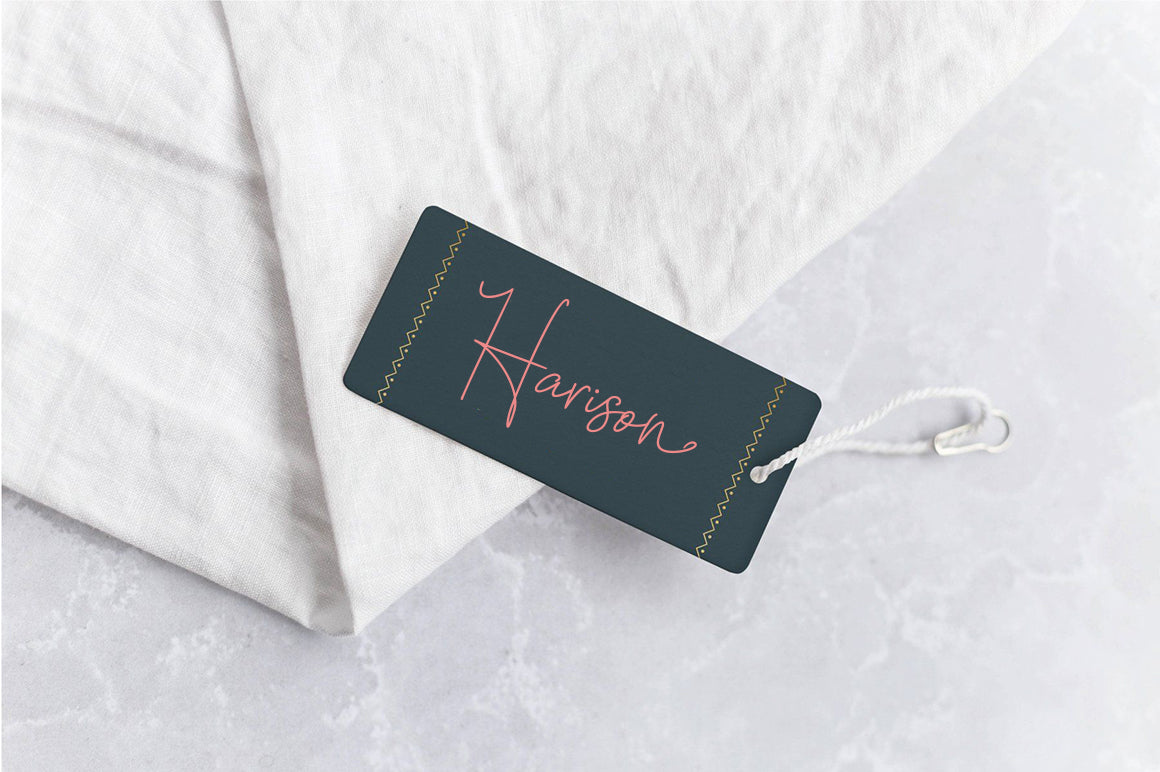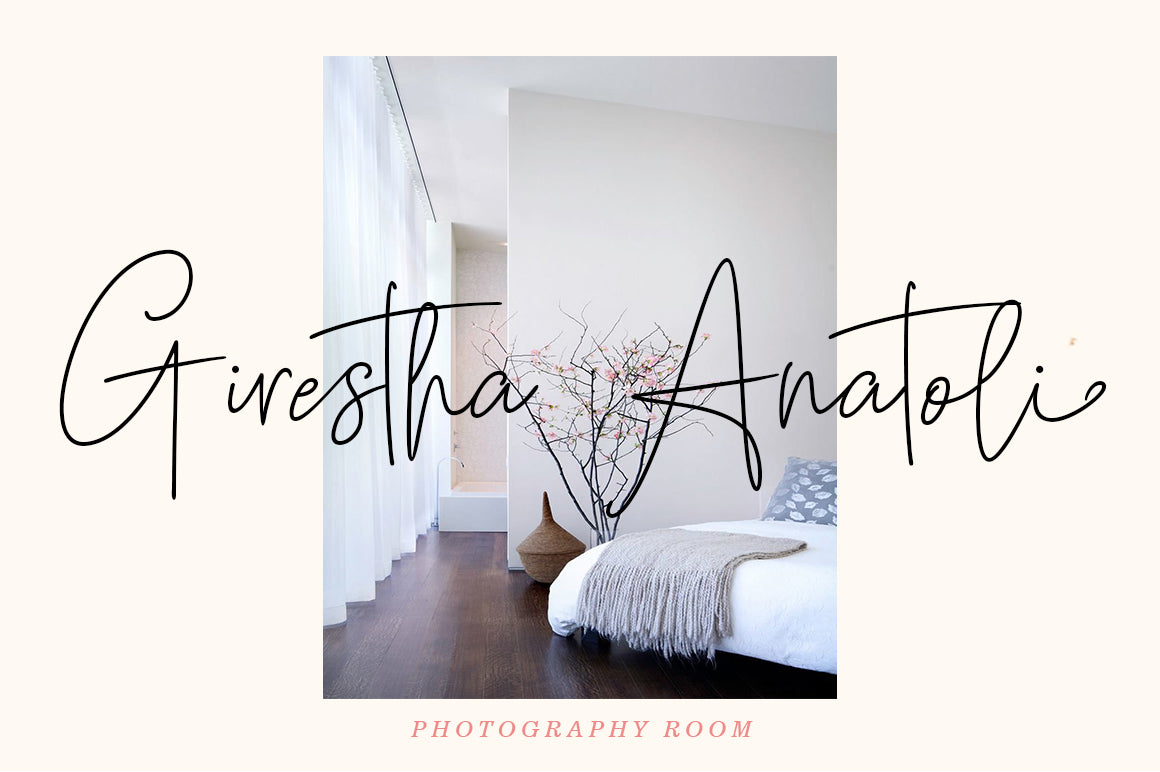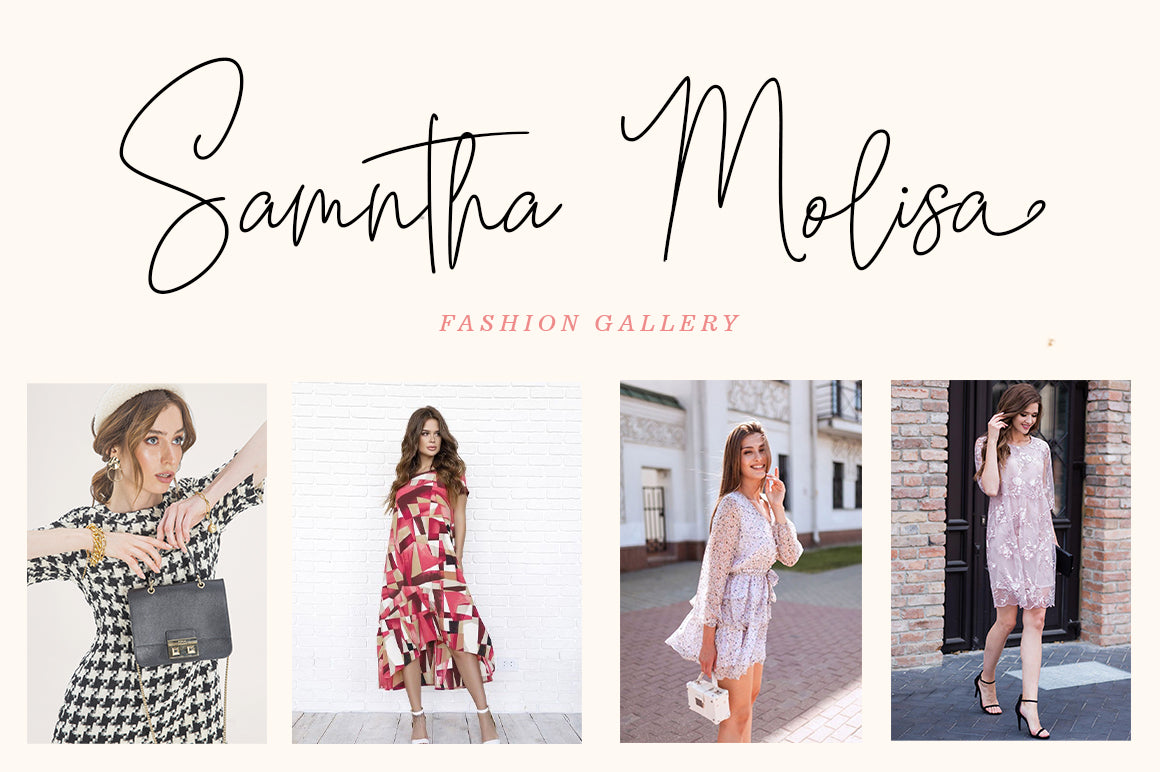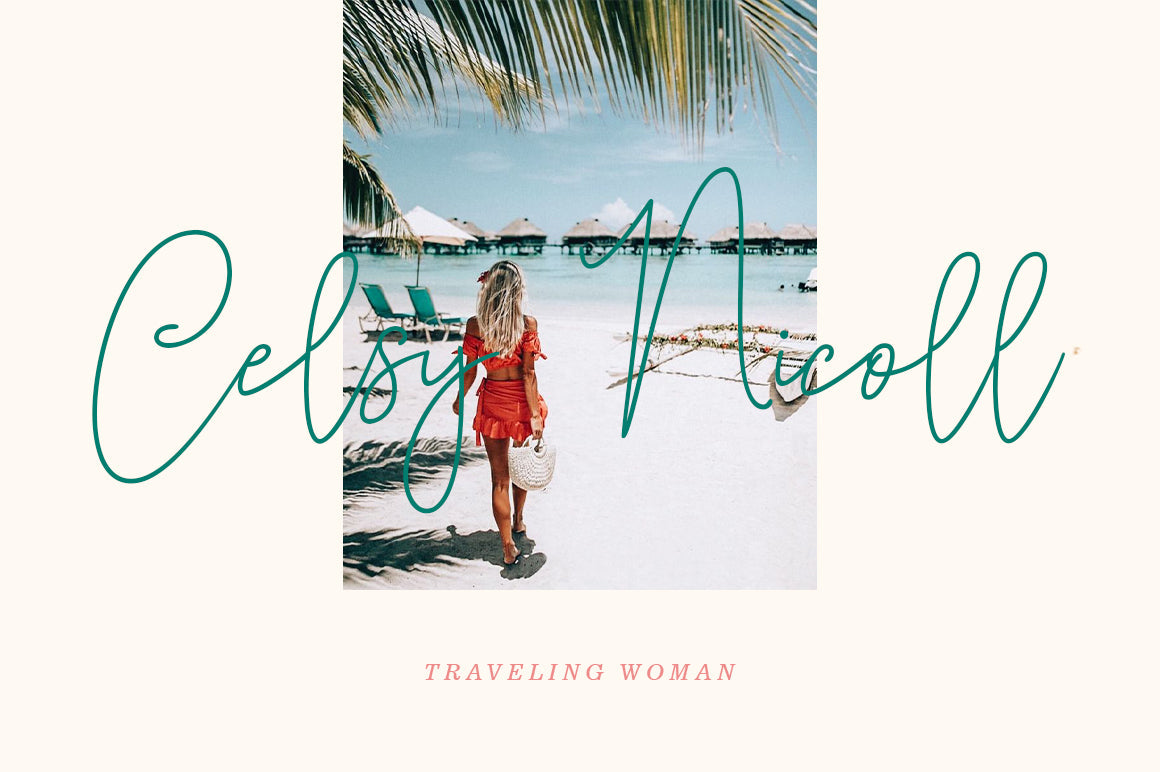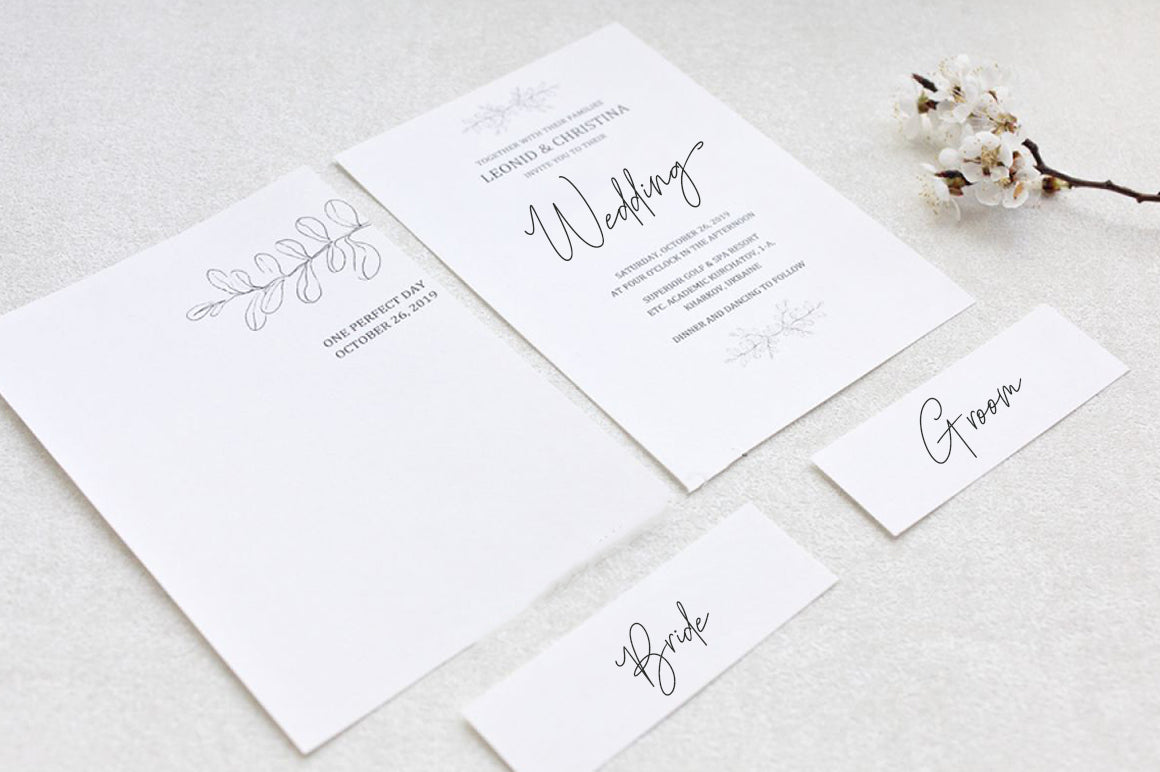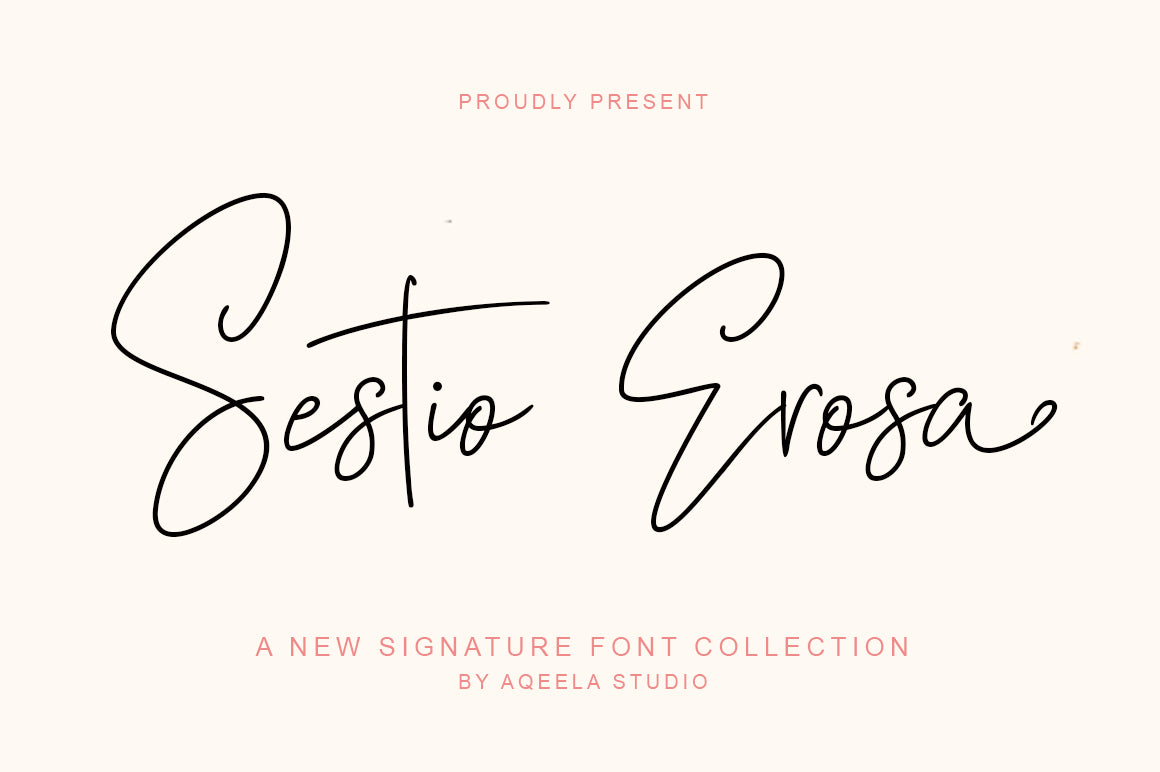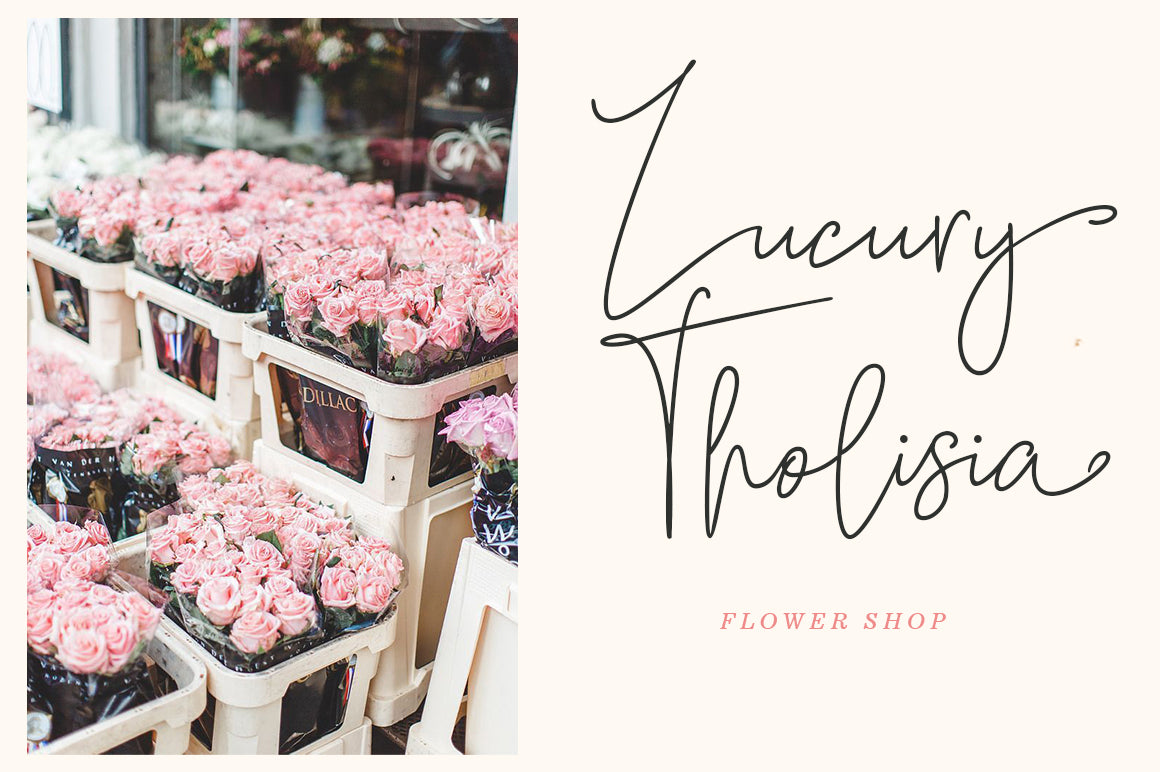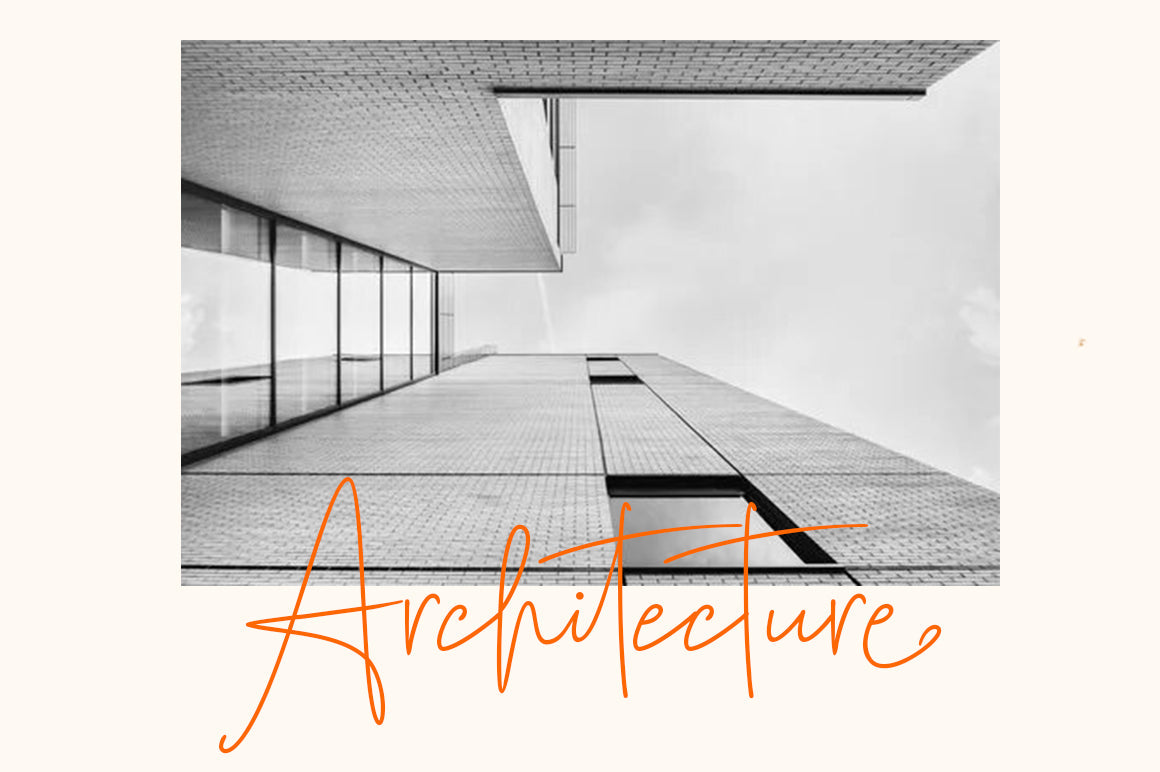
Sestio Erosa
Sestio Erosa is a relaxed and timeless calligraphy typeface with characters that dance along the baseline. It has a casual, yet elegant touch. It can be used for various purposes such as logos, wedding invitations, headings, t-shirts, letterhead, signage, labels, news, posters, badges and so much more. Sestio Erosa comes with a full set of upper and lower case letters, lowercase swashes, multilingual symbols, numbers, and punctuation marks.